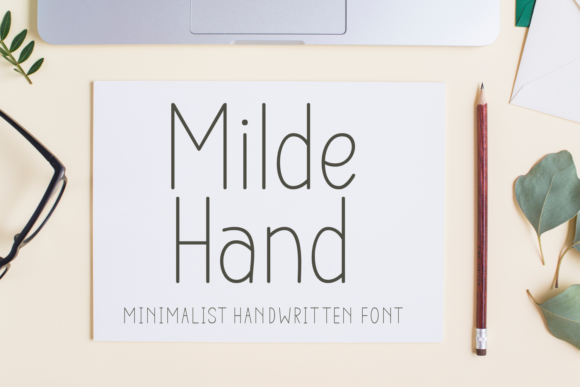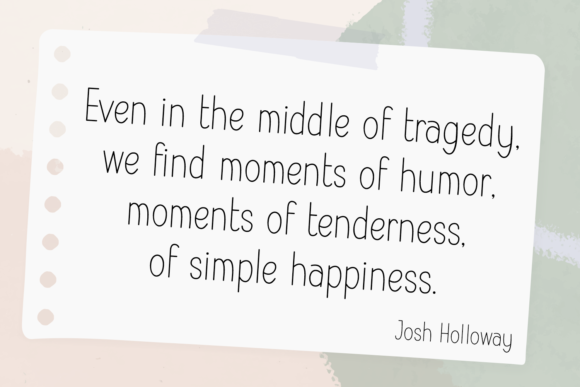
About Milde Hand Font
Milde Hand is a minimalist handwritten font, perfect to use whenever you need add a sweet touch to your projects. With its soft lines, and diversity, this is a font to be used for labels, packing, branding, crafts and more!